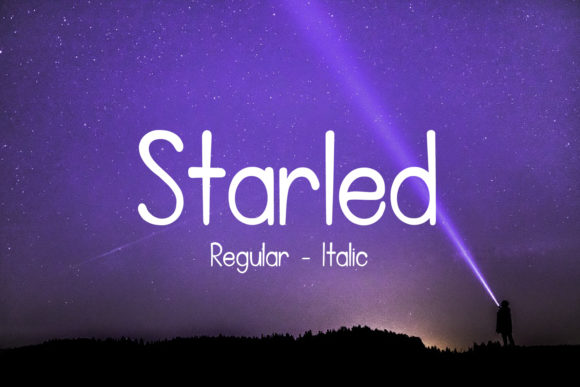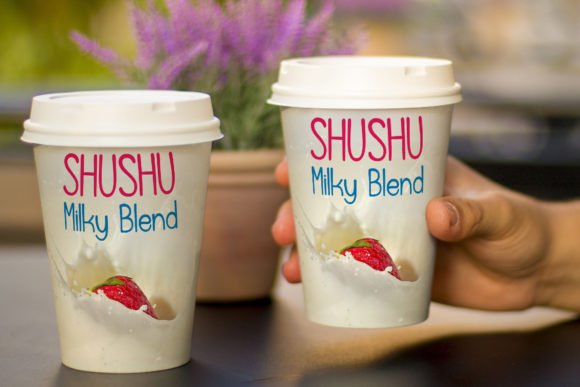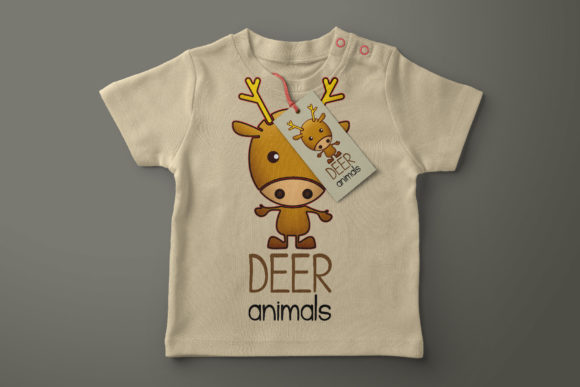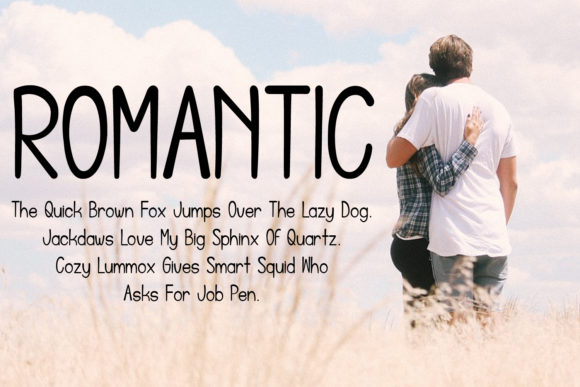
Starled Font
About Starled Font
Starled is a cute and beautiful handwritten font with a lovely feel. It will add an authentic touch to any design project!